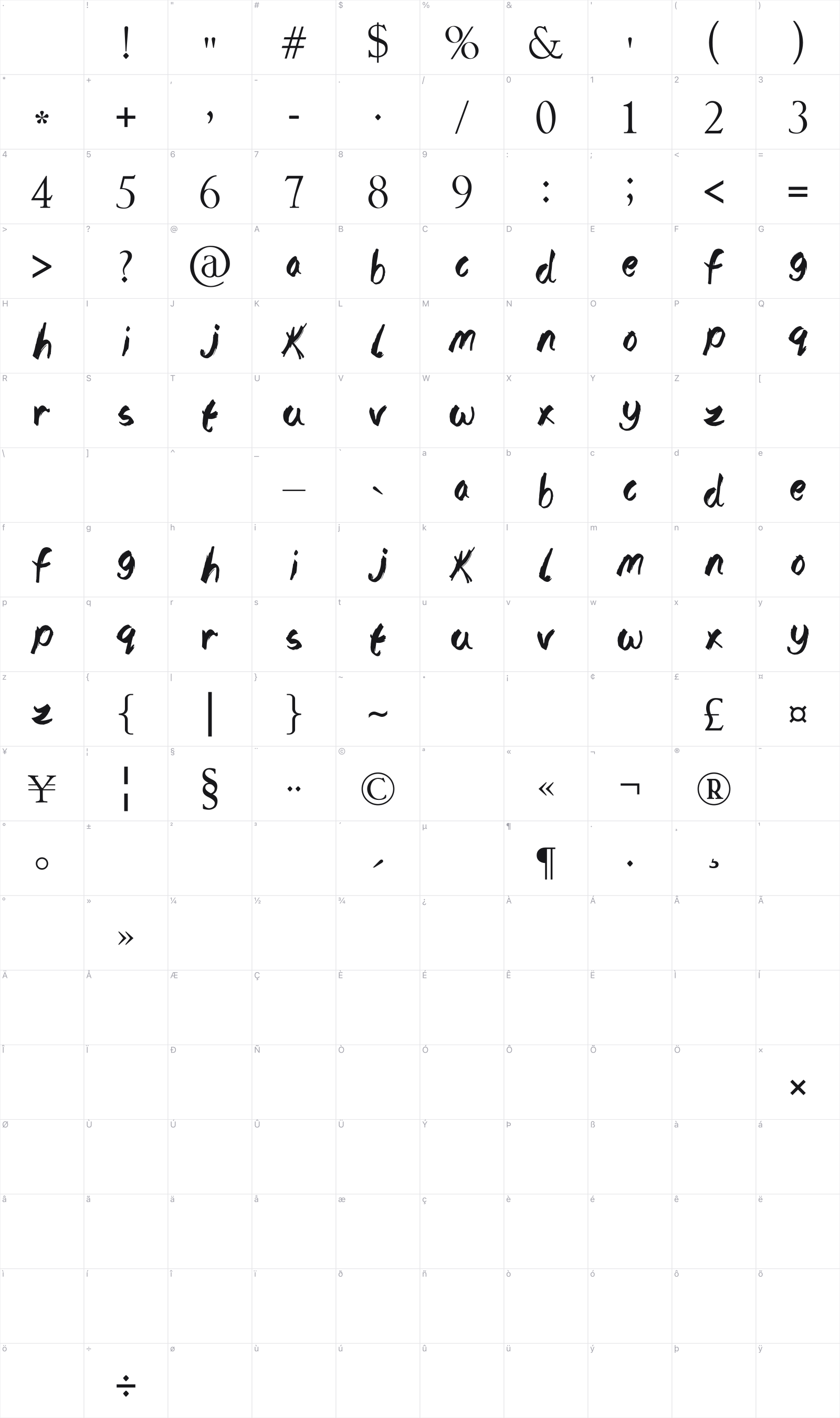
The Lost Paintings
The Lost Paintings is a bold brush script from Jonathan Harris built entirely from rough, textured paint strokes. Each character looks like it was swept onto canvas with a loaded brush mid-motion, with frayed edges and natural ink variation throughout. It carries a street-art rawness that suits tattoo aesthetics, music branding, and anything that needs to feel handmade and unpolished.